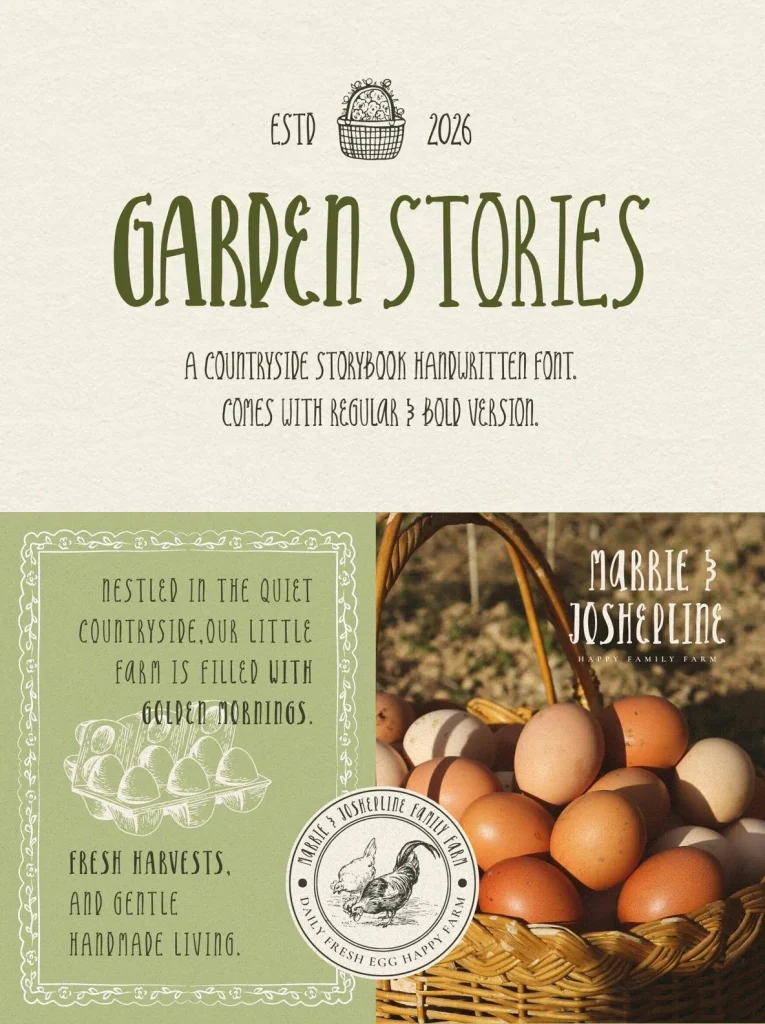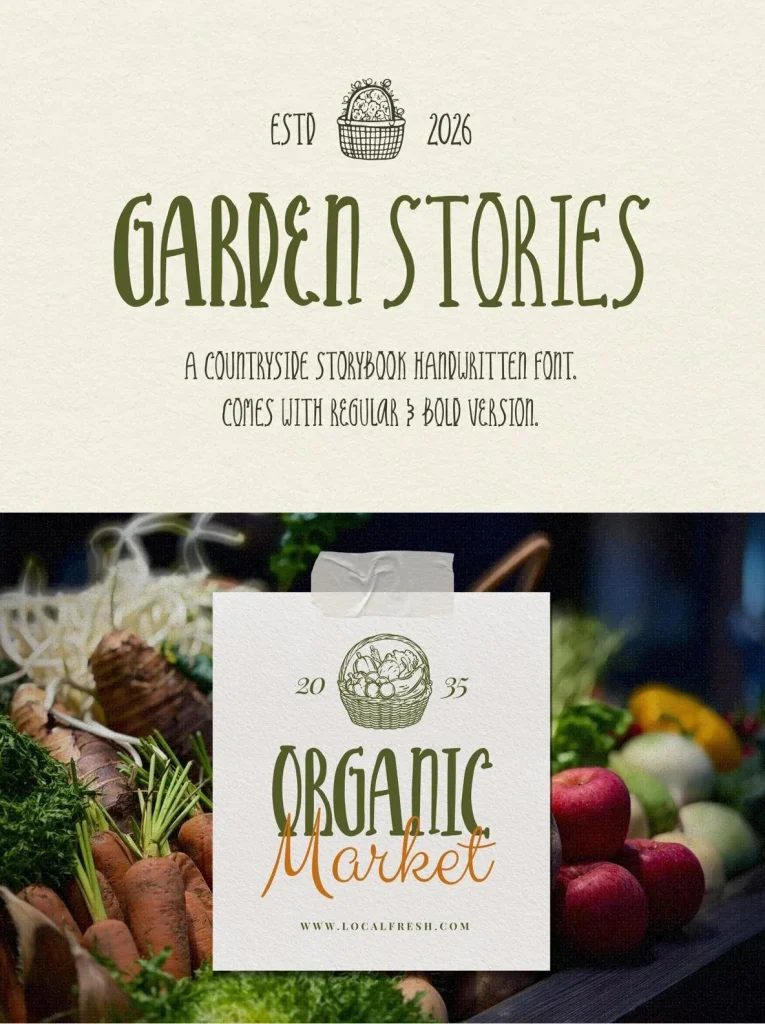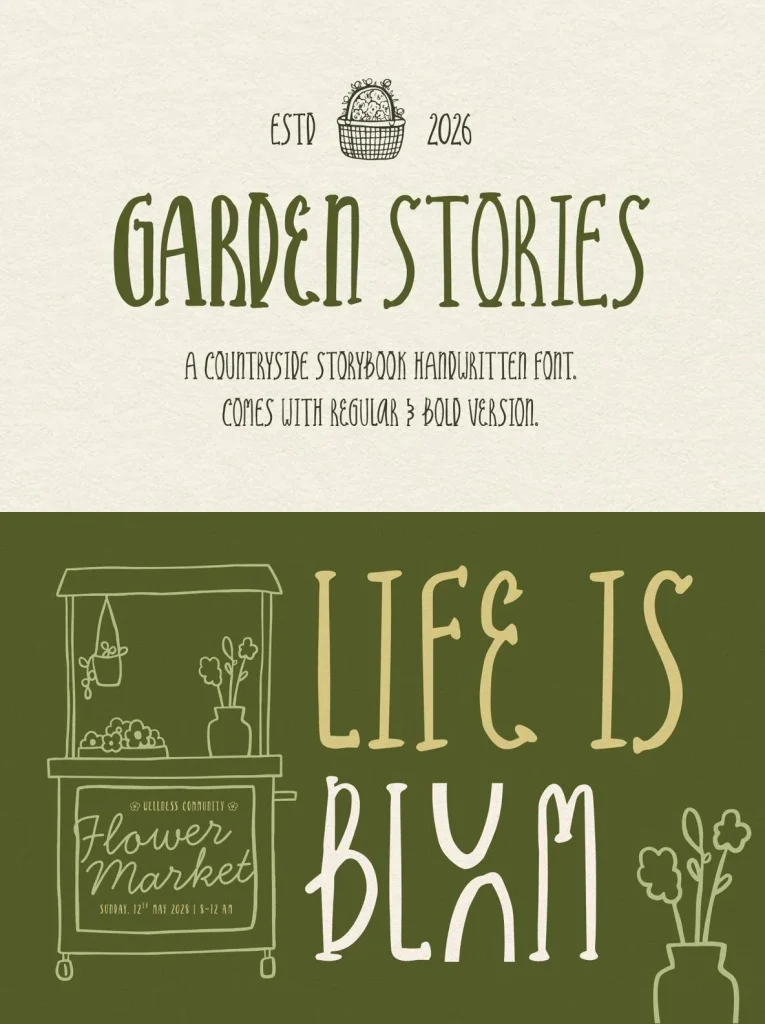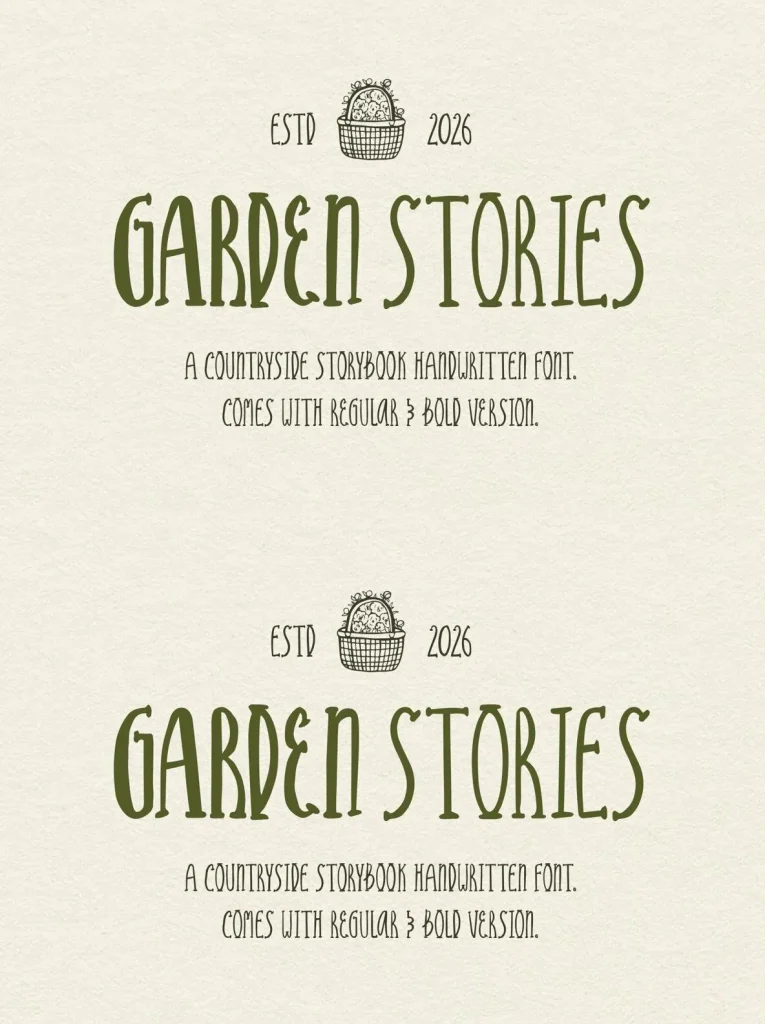
Garden Stories — Cozy Countryside Lettering
There is something soft and cozy about
Garden Stories
. Its tall, playful letters carry a natural handmade feel, like handwritten notes from a tiny countryside cottage. The style feels warm, homemade, and gently nostalgic, making it well suited to designs that need a friendly personal touch.
With regular and bold styles included, Garden Stories gives you useful flexibility for farmhouse branding, bakery packaging, children’s books, café menus, garden labels, and creative projects with a handcrafted mood. It brings a relaxed typographic voice to print and digital work while keeping the character simple, approachable, and easy to read.